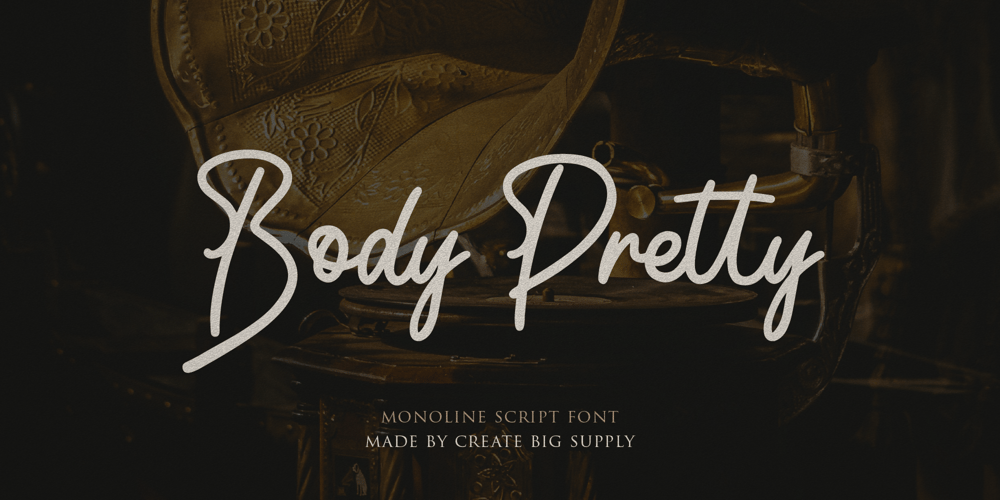
Body Pretty Font Family was designed by Irpan Maulana and published by Create Big Supply. Body Pretty contains 1 styles and family package options. Body Pretty is a Monoline Bold Script. Perfect for all your design needs such as branding designs, logos, and more. This font is PUA encoded which means you can access all the amazing glyphs and ligatures easily Features: Uppercase & lowercase Numbers and punctuation Multilingual Ligatures Alternates PUA Encoding Full Character Set!”#$%&'()*+,-./0123456789:;<=>?@ABCDEFGHIJKLMNOPQRSTUVWXYZ[]^_`abcdefghijklmnopqrstuvwxyz{|}~¡¢£¤¥§¨©ª«®¯°±²³´¹º»¿ÀÁÂÃÄÅÆÇÈÉÊËÌÍÎÏÑÒÓÔÕÖרÙÚÛÜÝÞßàáâãäåæçèéêëìíîïñòóôõö÷øùúûüýþÿ•†‹›?–ˆ?˜€“‘ŸœŒš?”’?žŠ